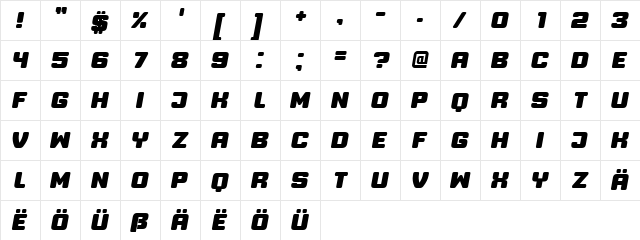
Professor Italic
Design Context for Professor Typeface
Professor offers clean, dependable letterforms without strong stylistic allegiance, making it a practical choice for designers who need flexibility. The slanted form adds forward momentum and visual energy.
Pro Tip: Use Professor for emphasis, pull quotes, and subheadings where its slanted energy can add rhythm to the layout.